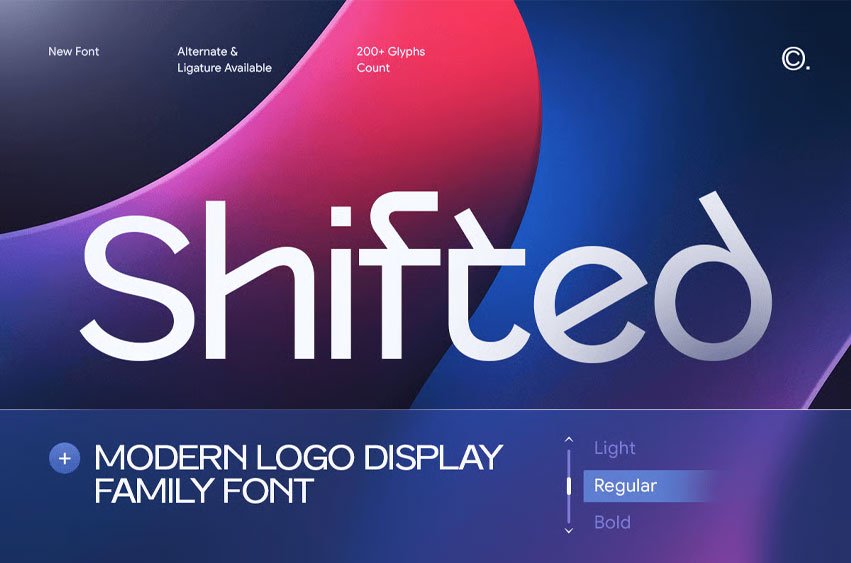
Shifted Font Modern Logo Family Font Shifted is a modern logo family font designed to deliver versatility, clarity, and a strong contemporary visual identity. Featuring clean letterforms, balanced proportions, and a sleek geometric structure, Shifted is perfect for logos, branding systems, editorial layouts, packaging, and modern creative projects.
Combining minimalist design principles with professional typography, Shifted creates a distinctive and memorable appearance. Its flexible family structure allows seamless use across various branding applications while maintaining excellent readability and a refined modern aesthetic, making it ideal for startups, agencies, technology brands, and corporate visuals.
Shifted – Modern Logo Family Font Features:
- Modern logo style with clean geometric aesthetics
- Prepared with 3 weights: light, regular and bold
- Balanced letterforms for professional branding applications
- Ideal for logos, editorials, packaging, and visual identities
- Font family with versatile weights and style options
- Uppercase, lowercase, numerals, and punctuation included
- Perfect for startups, agencies, technology, and business branding
Build a modern and professional identity with Shifted – the logo font family designed for versatile branding solutions.